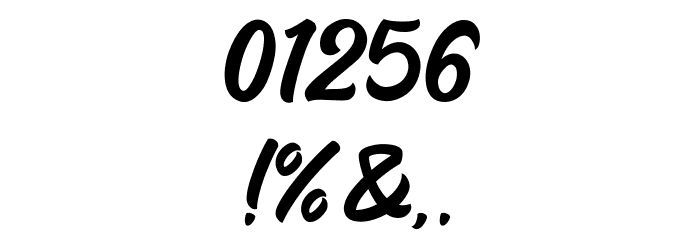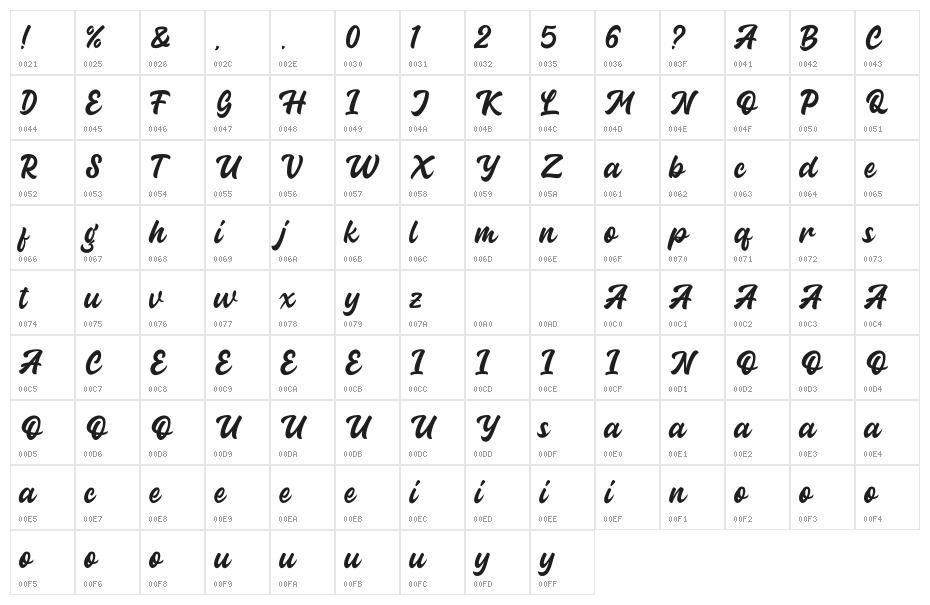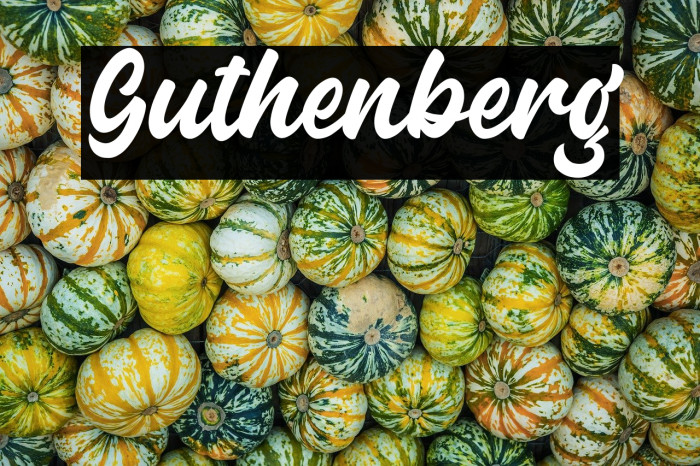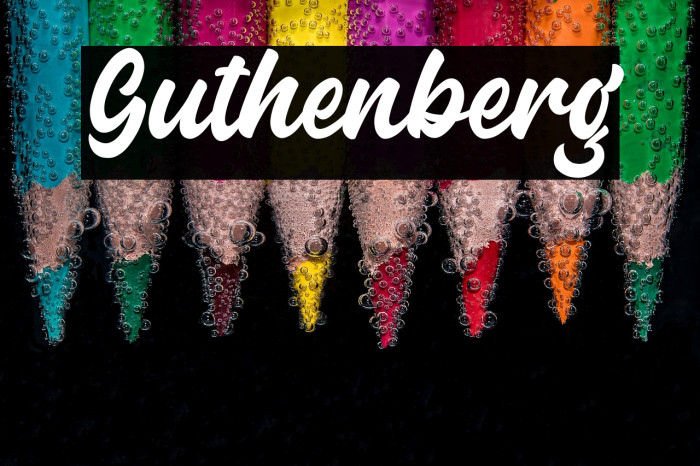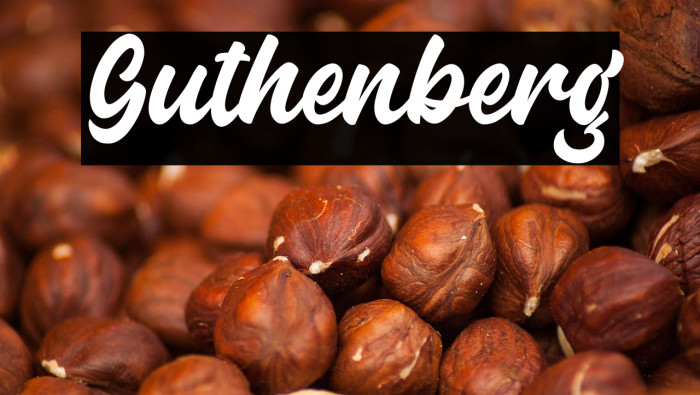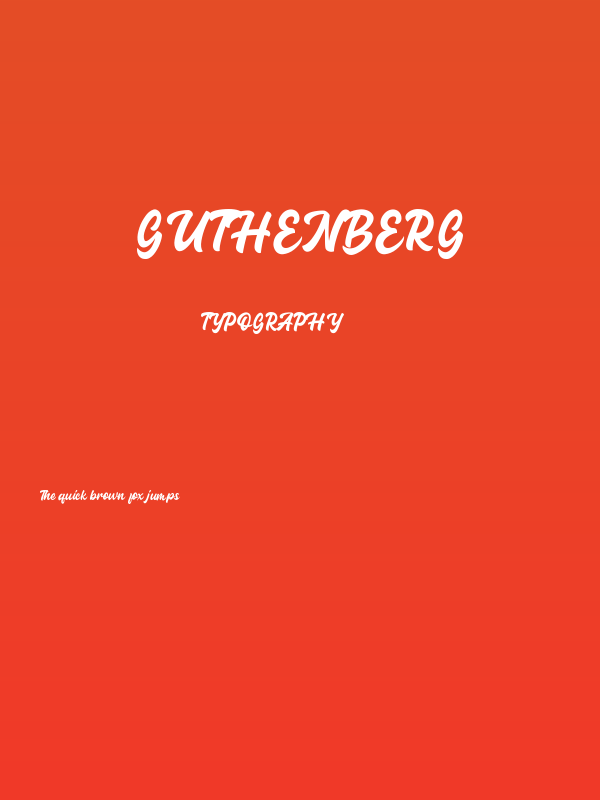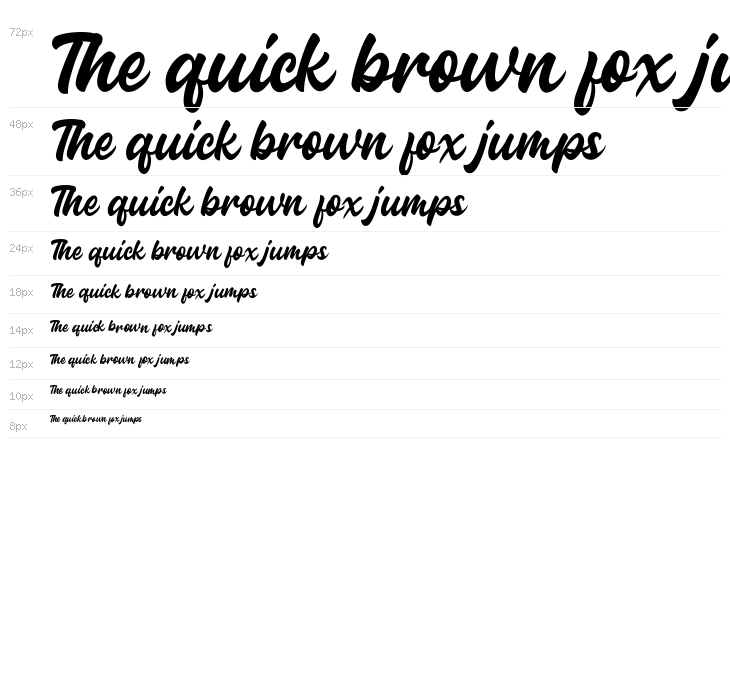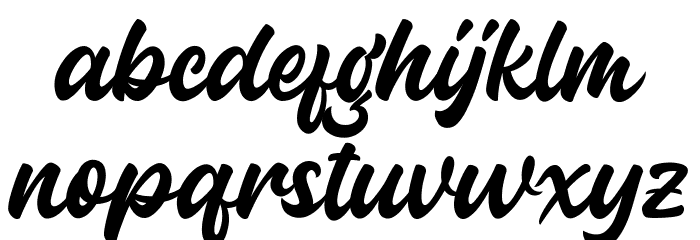
Guthenberg Font
Guthenberg Description
This font features a bold, cursive style with smooth, flowing lines that give it a dynamic and elegant appearance. The uppercase letters are slightly larger and more pronounced, while the lowercase letters maintain a consistent flow, enhancing readability. The numbers and special characters are designed to match the overall cursive aesthetic, ensuring a cohesive look across all characters. The font's bold strokes and connected letters suggest a sense of movement and fluidity, making it suitable for projects that require a touch of sophistication and flair.
| Proposed Projects | Ideal for wedding invitations, elegant branding, greeting cards, and decorative signage. |